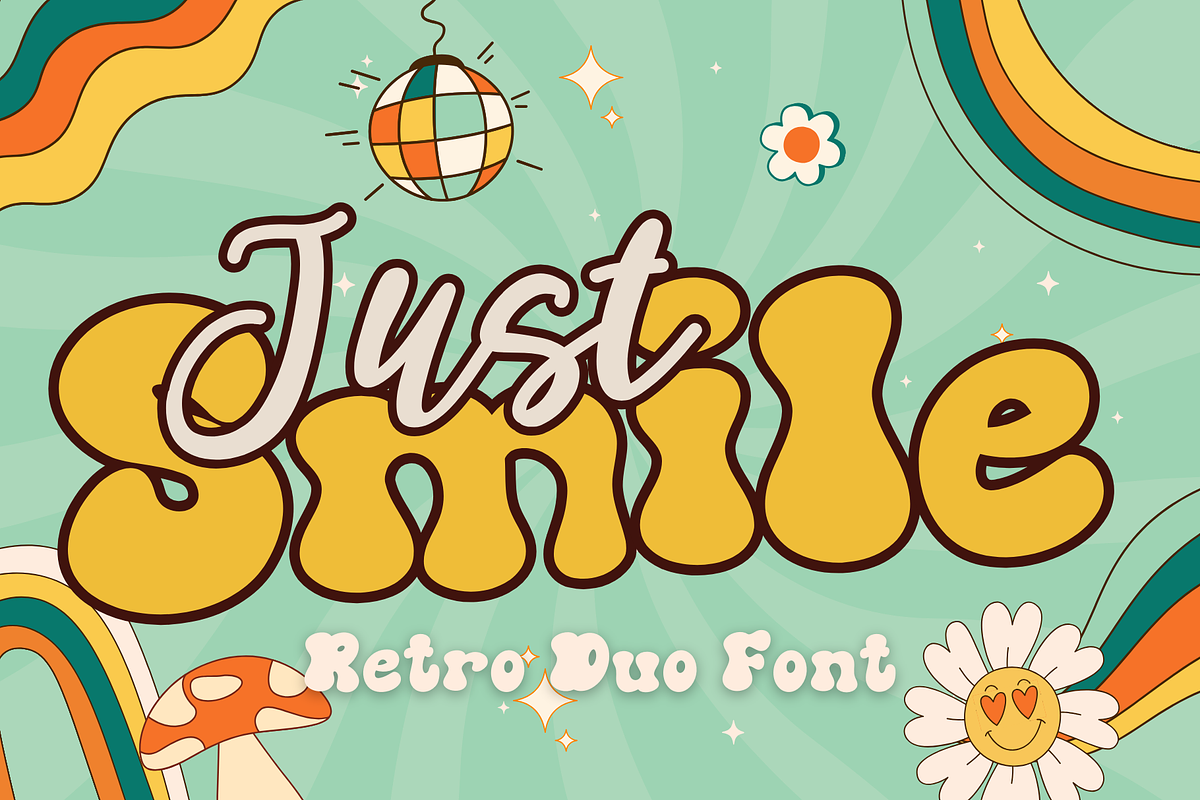
Just Smile – Stylish Retro Duo Font Free Download is a charming and bold typeface duo that brings vintage vibes with a modern twist. Featuring a combination of a playful script and a strong sans-serif, this font duo is perfect for retro-inspired branding, posters, social media graphics, and any design project that needs a touch of nostalgia.
The script font offers smooth, flowing curves, while the sans-serif brings balance with clean, structured lines. Together, they create a unique and fun contrast that is both timeless and fresh.